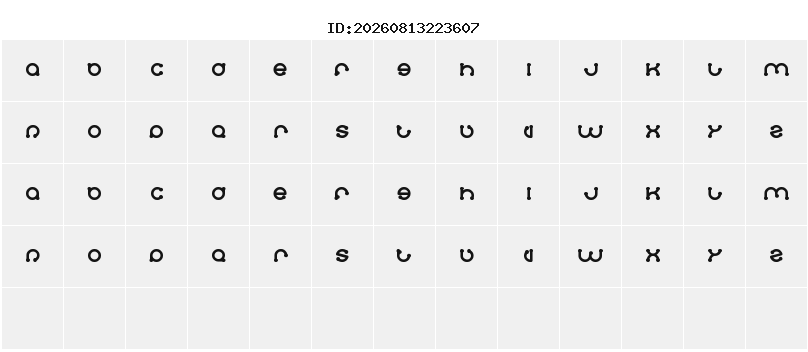
skateboard Preview
• Font Name: skateboard
• Font ID: skateboard:Version 1.00
• Full Font Name: skateboard
• Version: Version 1.00 April 9, 2012, initial release
• PostScript Name: skateboard
About skateboard.ttf
skateboard.ttf is a modern, elegant sans-serif font designed for ultimate readability and visual harmony. Perfect for branding, headlines, web design, and print materials.